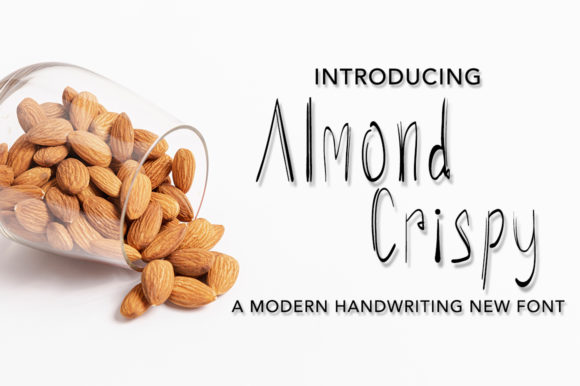
The Sweet Delight of Almond Crispy Font
I’ll never forget the moment I stumbled upon the Almond Crispy font. I was working on a project for a client who wanted a whimsical and playful vibe, but I was struggling to find the perfect font to match their brand. That’s when I discovered Almond Crispy – a sweet and simple lettered handwritten font that instantly captured my heart. Its incredibly versatile style won me over, and I knew I had to share it with the world!
An Honest Review of Almond Crispy
• ✨ Sweet and simple lettered design that’s perfect for a variety of projects
• ✅ Incredibly versatile style that works well for both digital and print designs
• 💕 Beautifully crafted to evoke a sense of playfulness and whimsy
• 👍 Easy to read and understand, even in smaller font sizes
While Almond Crispy is an amazing font, there are a few things to keep in mind:
• ⚠️ Some letters may not have perfect symmetry, which can be a minor issue for certain designs
• 🤔 Limited availability of special characters and glyphs, which might limit its use in certain contexts
The Backstory of Almond Crispy
Almond Crispy was designed by a talented typographer who wanted to create a font that was both sweet and simple. Inspired by the beauty of handwritten letters, the designer crafted Almond Crispy to be a versatile font that could be used in a variety of contexts. From branding and packaging to digital designs and crafts, Almond Crispy has become a popular choice among designers and crafters alike.
Q: What is Almond Crispy font?
Almond Crispy is a sweet and simple lettered handwritten font that’s perfect for a variety of design projects.
Q: Can I use Almond Crispy for my branding and packaging design?
Absolutely! Almond Crispy is a versatile font that works well for branding and packaging design. Its sweet and simple design makes it perfect for creating eye-catching labels and packaging.